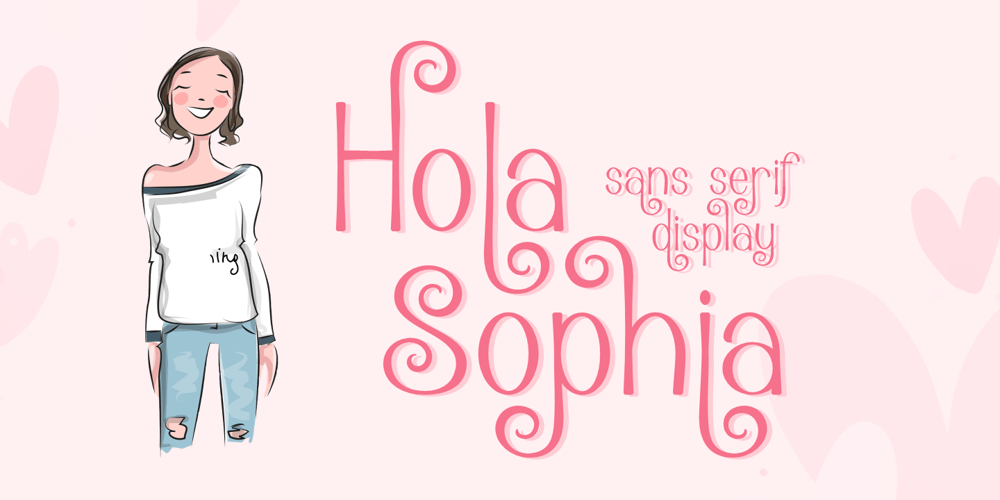
Hola Sophia Font Family was designed by Raditya Putra Pratama and published by Raditya Type. Hola Sophia contains 1 styles and family package options. HOLA SOPHIA is a cute upper and lowercase font with alternates. It’s fun and cute and perfect for your craft and design projects